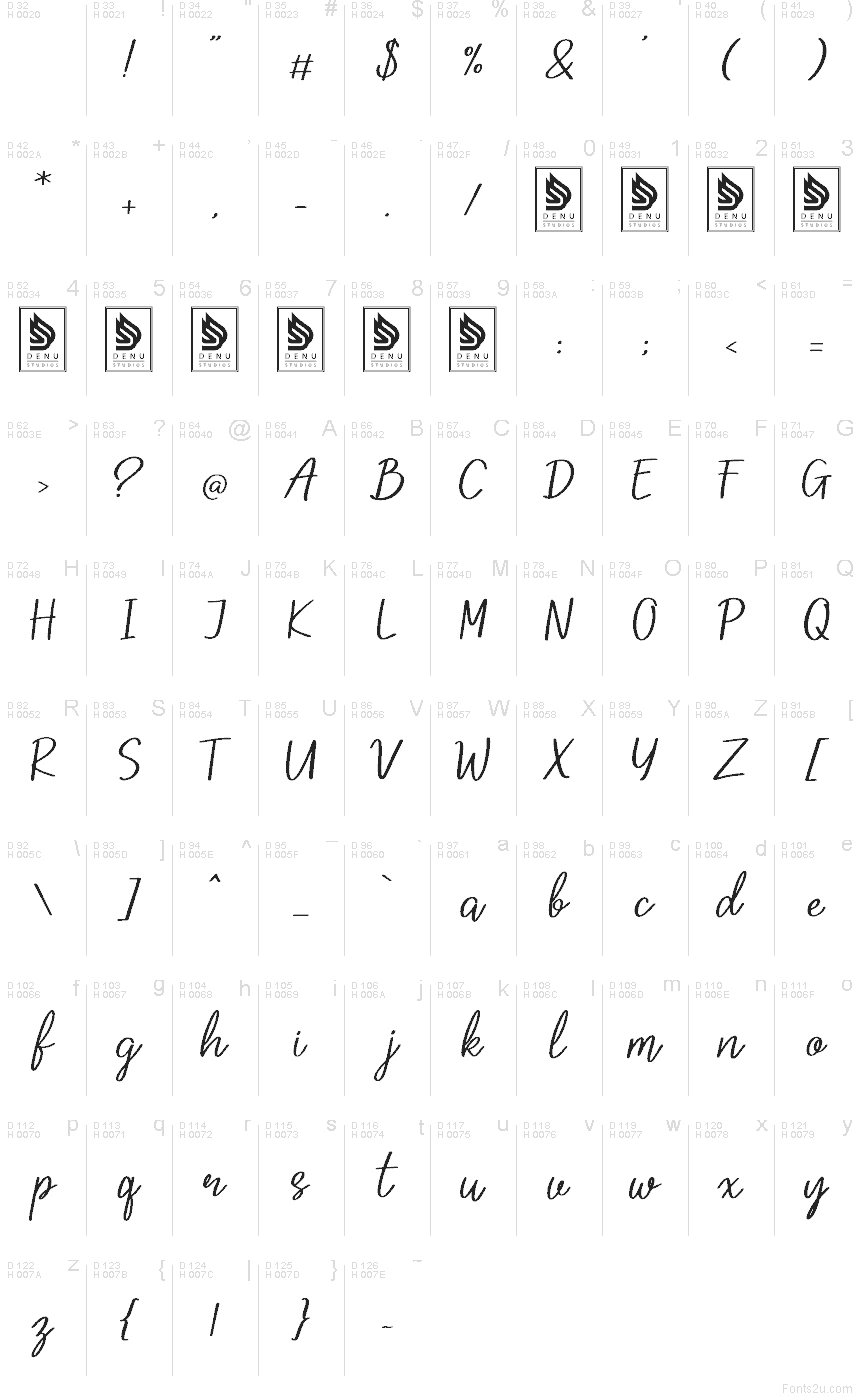
Identic Partner Script by Denustudios is a free handwritten script with a loose, modern calligraphy feel. The letters lean on long, tapered strokes and airy loops, while the tall initial and clipped cross strokes keep it from getting too sweet or formal.
This free font fits branding, packaging, cafe menus, social posts, greeting cards, and short cover lines where a quick handwritten note feels right. It works best in brief phrases, logos, and title cards, because the flowing joins and narrow rhythm give the words motion without turning them into rigid brush lettering.
Identic Partner Script